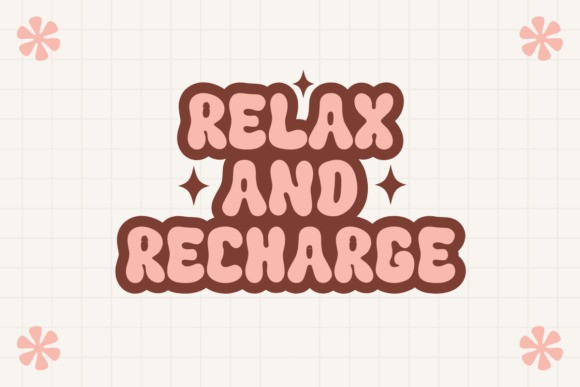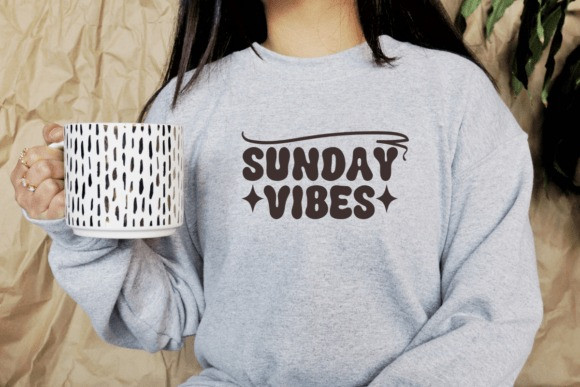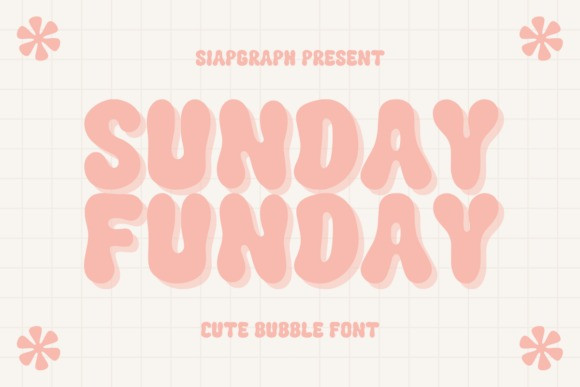
Sunday Funday Display Font
Sunday Funday Display Font is a bubbly and cheerful typeface that brings a sense of playfulness and joy to your designs. Its soft, rounded letters are perfect for kids’ projects, party invitations, social media posts, and fun branding. Make every day feel like a celebration with this cute and versatile font!